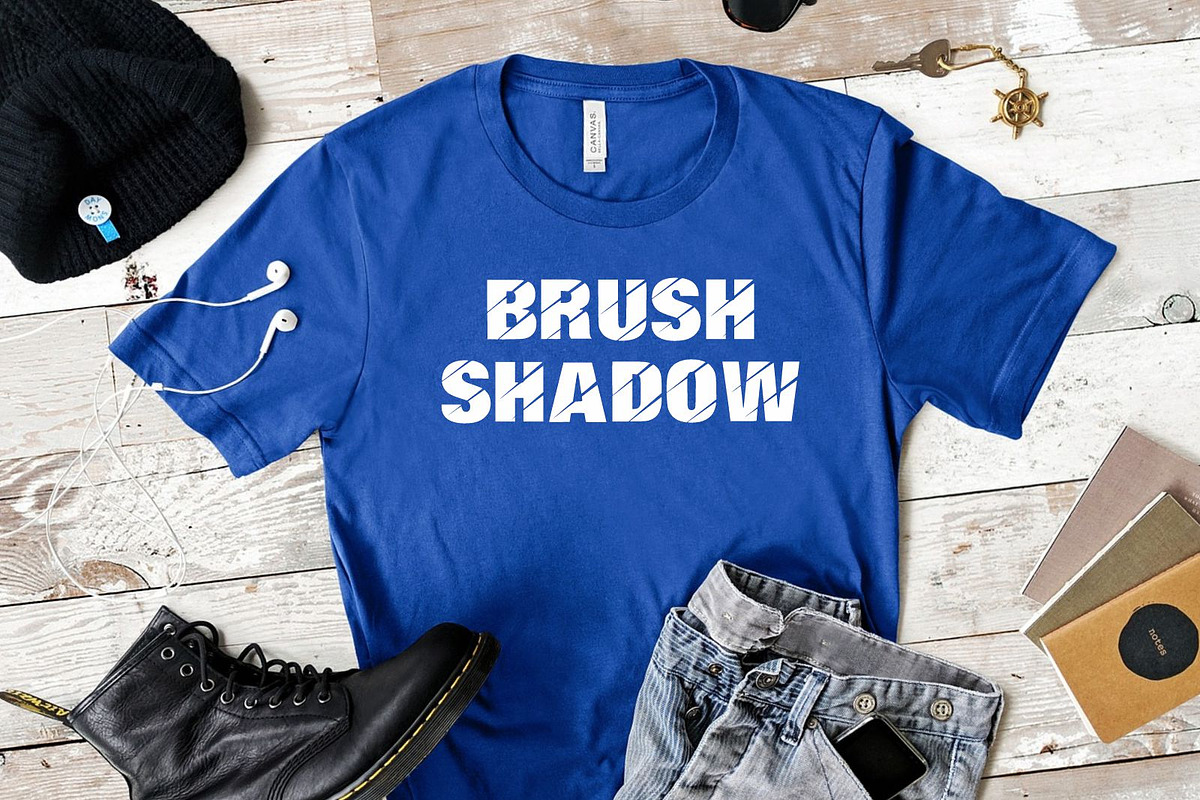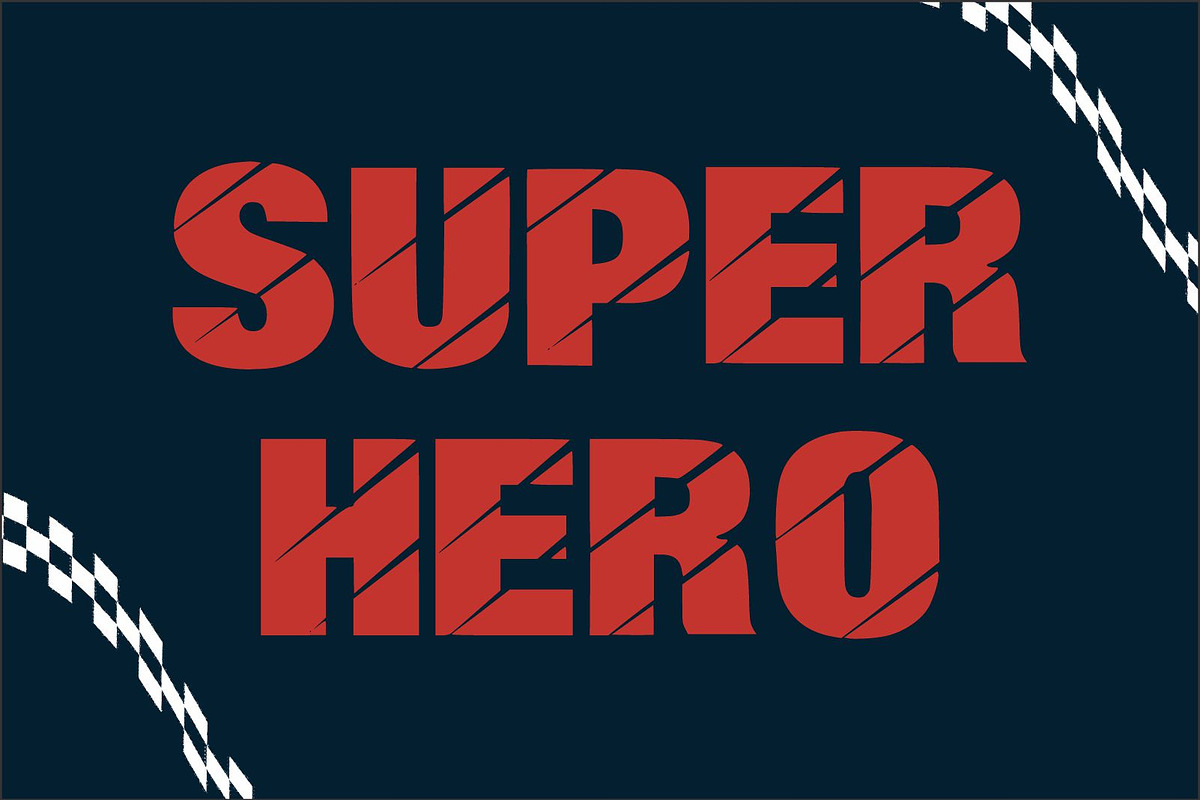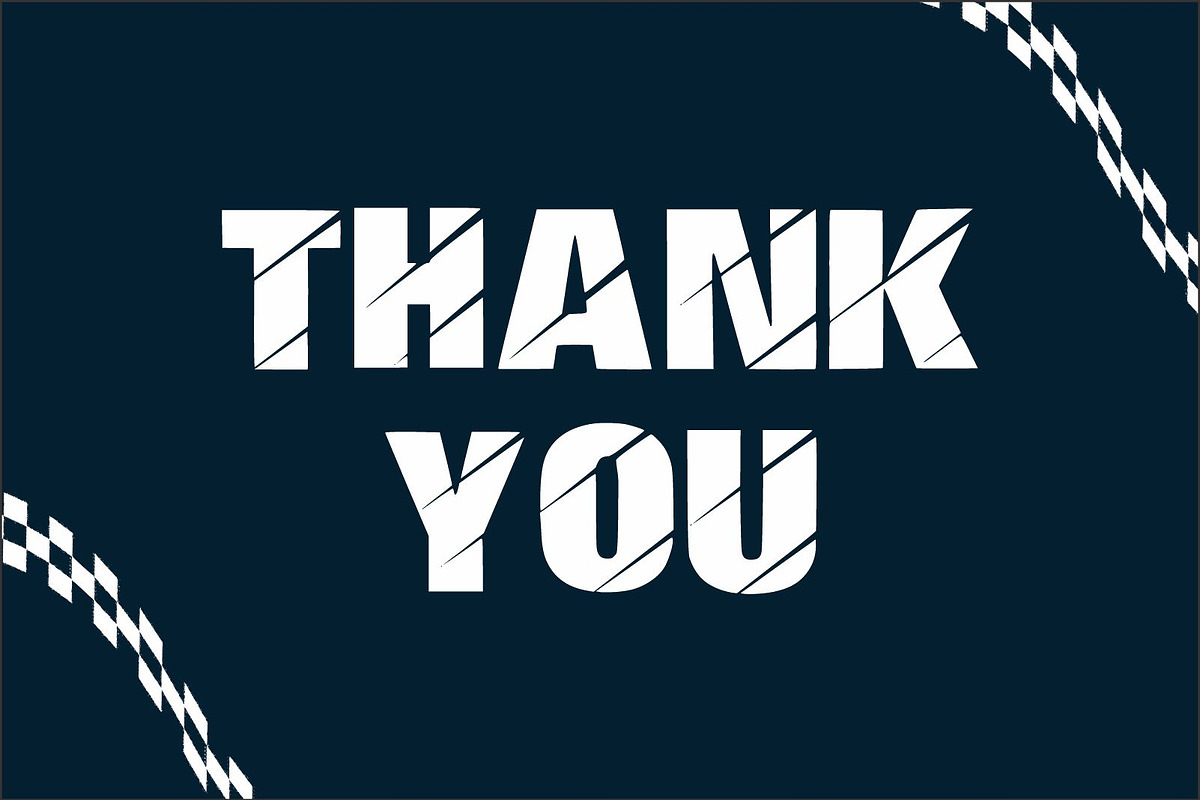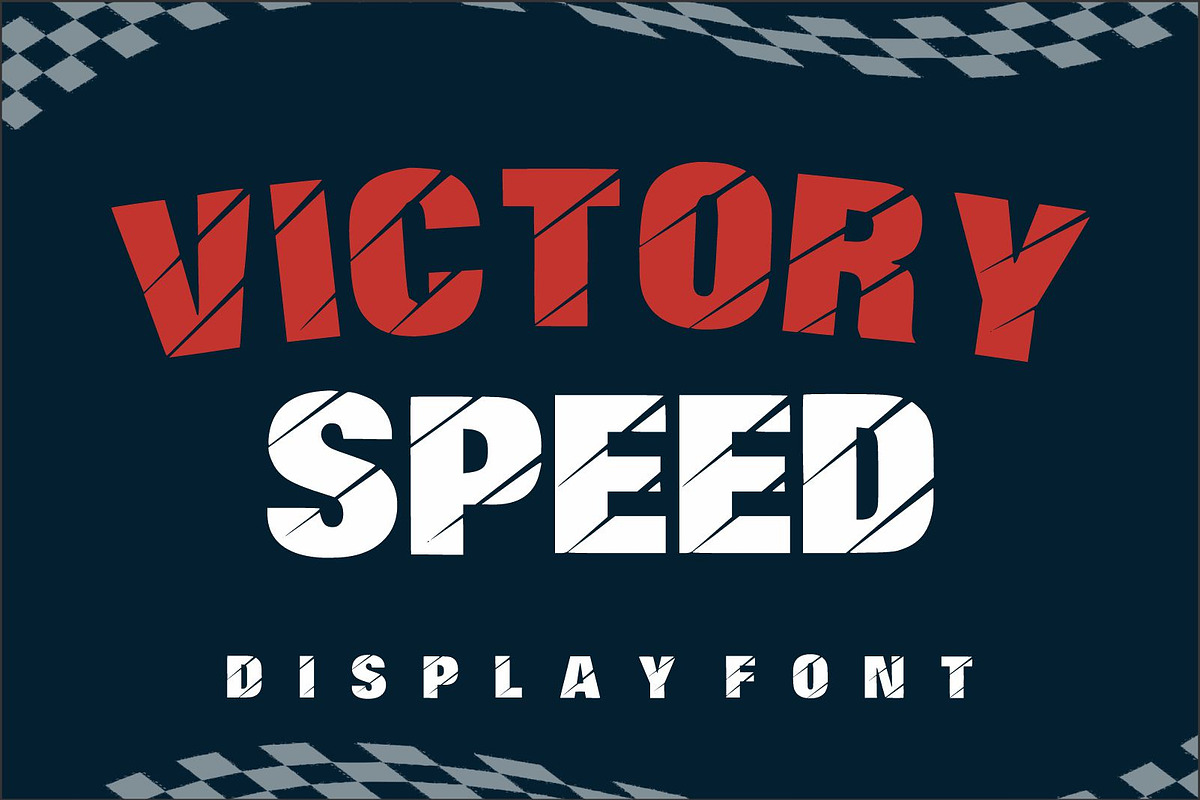
Victory Speed
Victory Speed is a cool and elegant grunge display font. No matter the topic, this font will be an incredible asset to your fonts’ library, as it has the potential to elevate any creation. It features a strong and commanding look, with thick lines and sharp edges that convey power and athleticism.